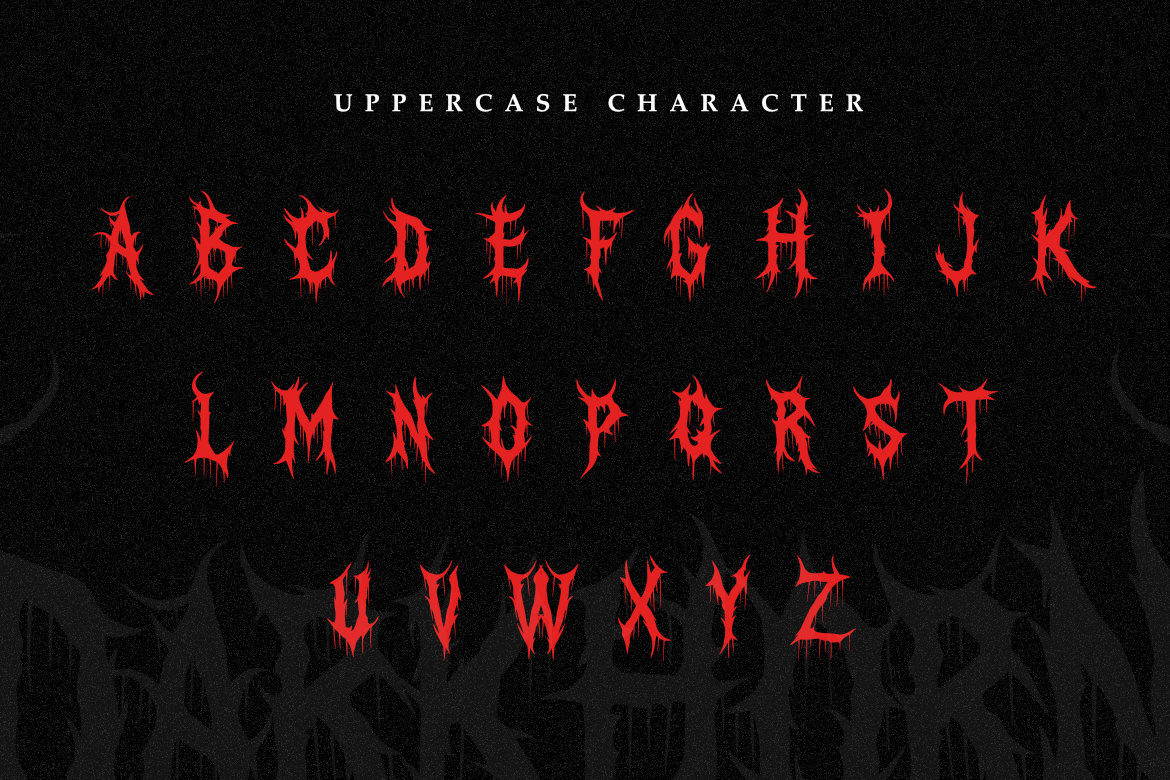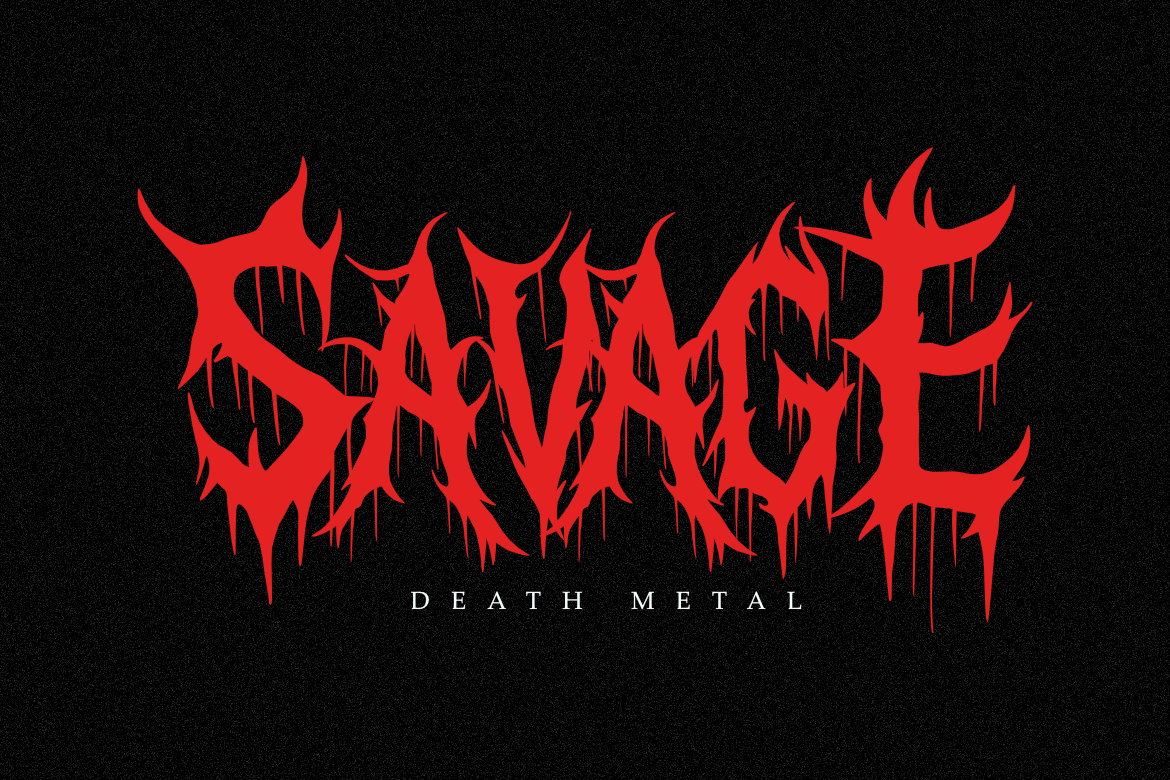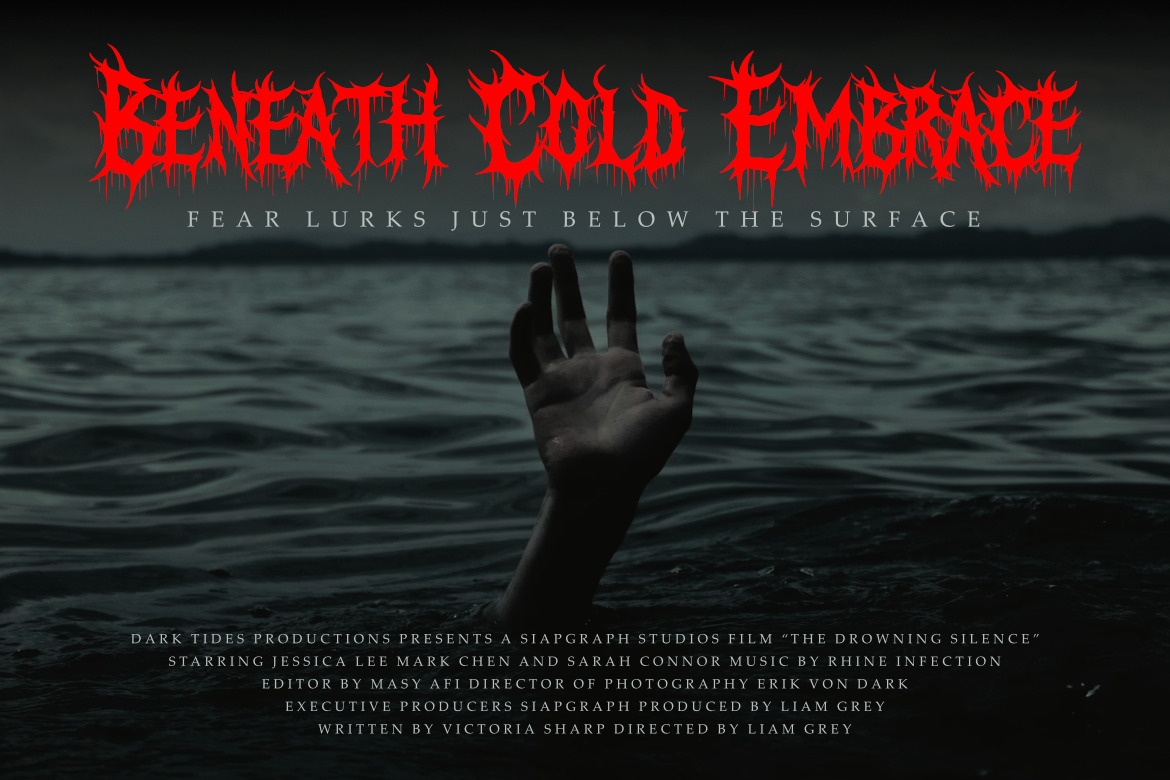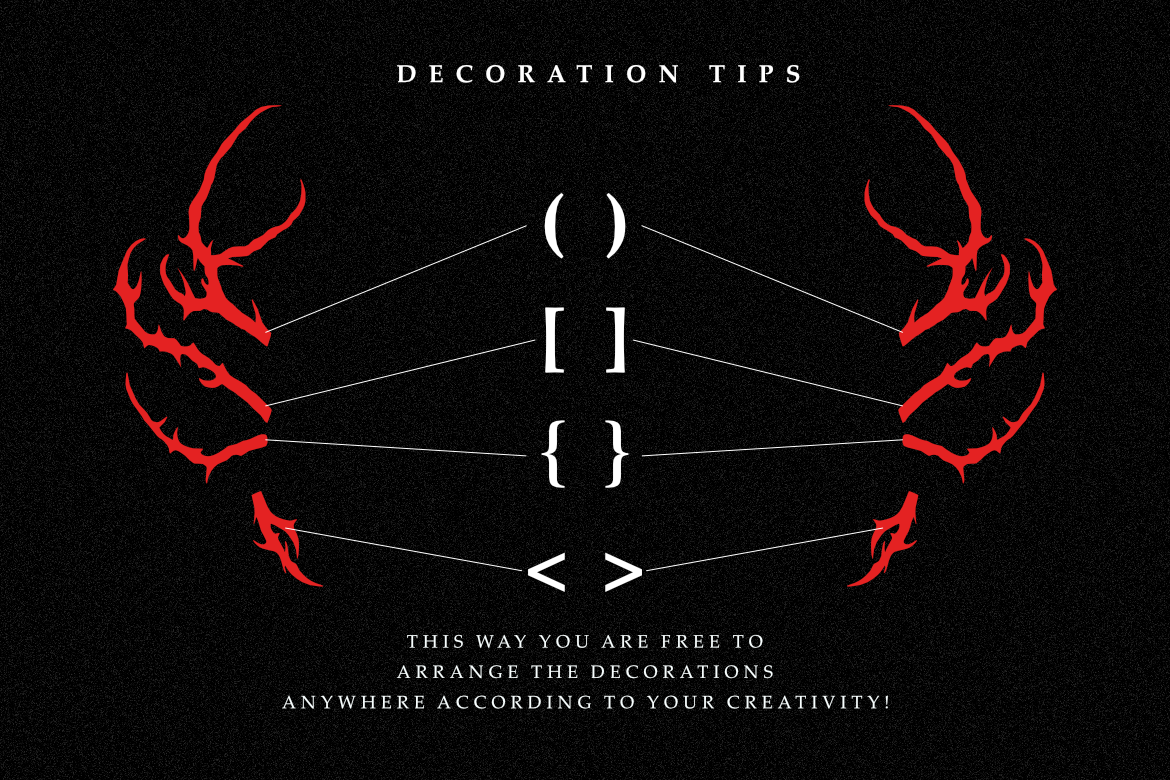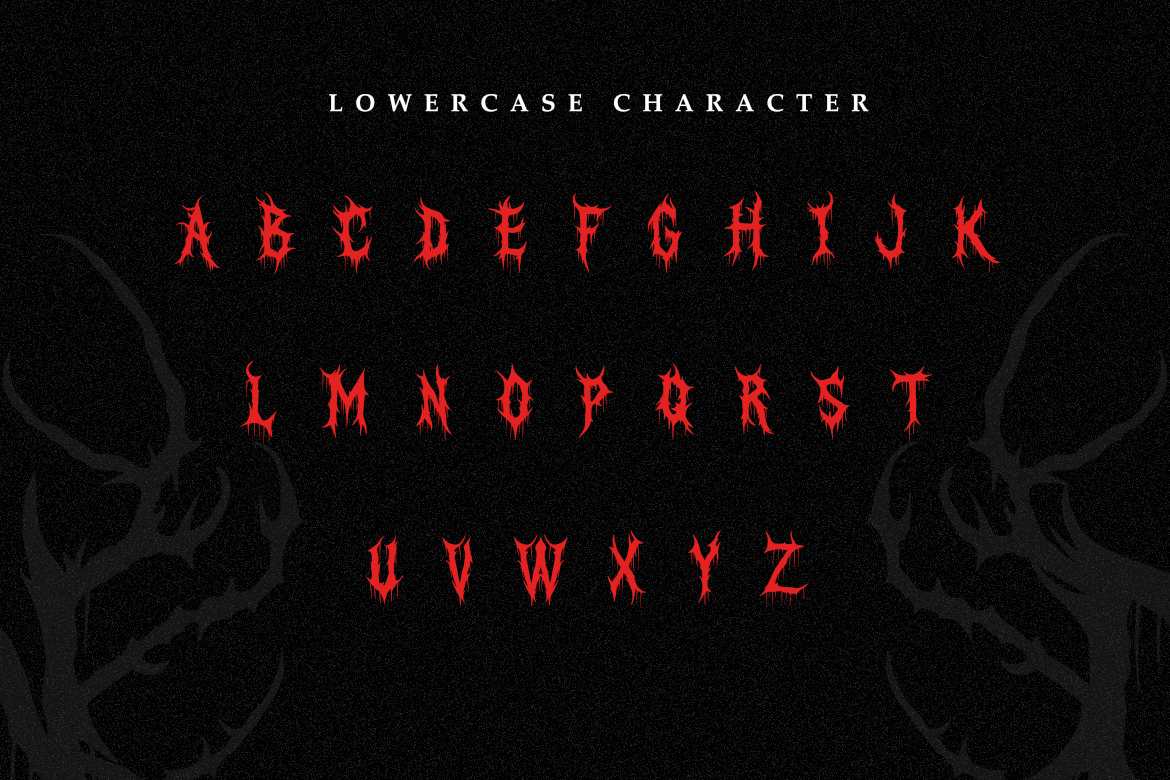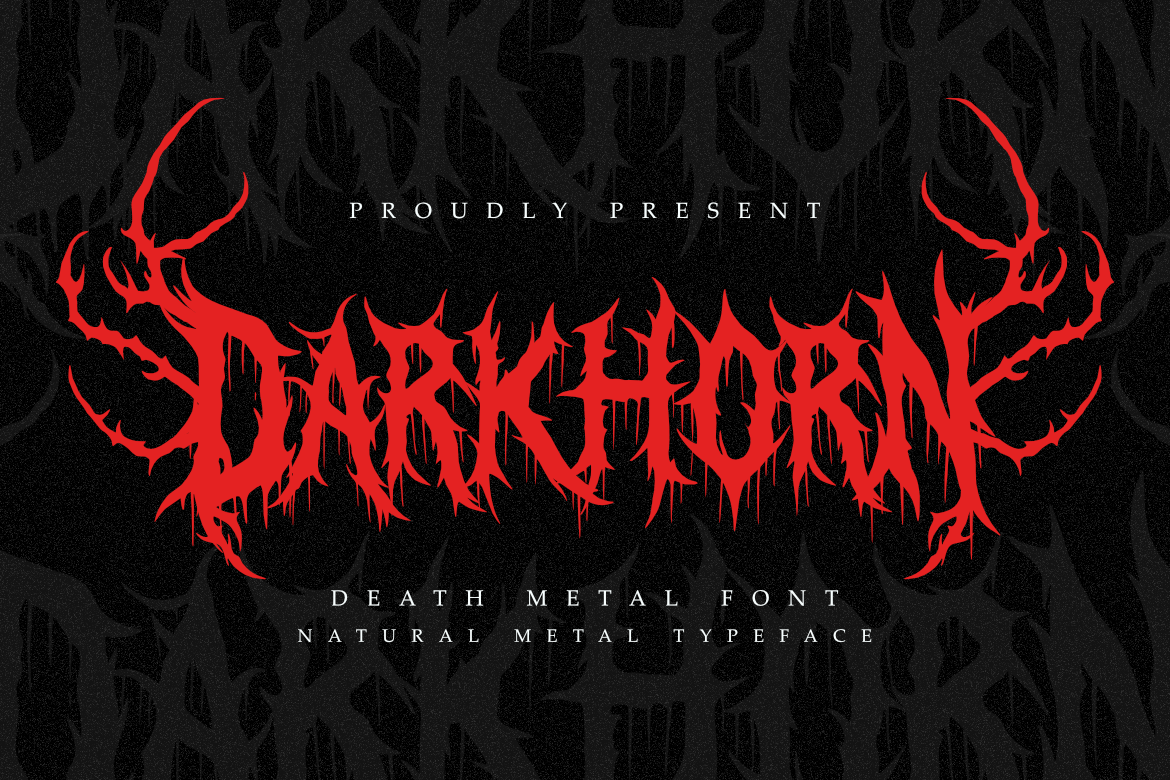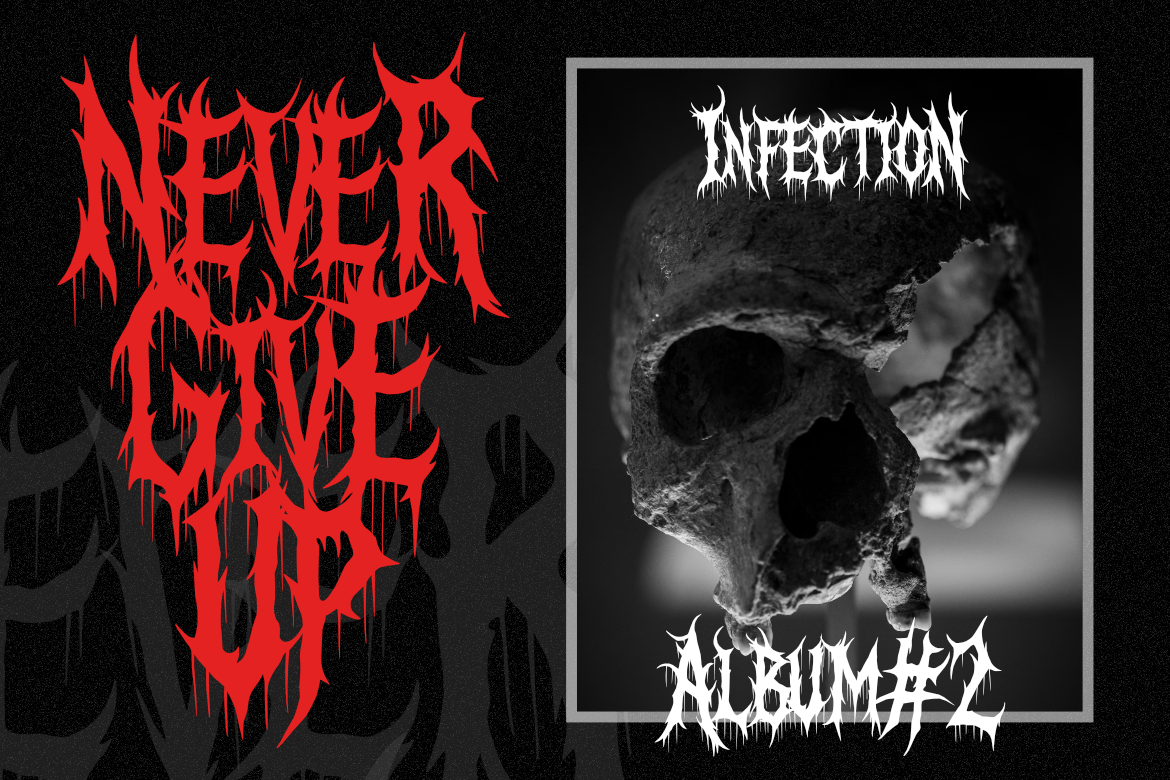
Darkhorn - Death Metal Font
Death Metal Font for Band Logos, Album Covers & Extreme Branding
Darkhorn is a brutal display font inspired by the extreme aesthetic of death metal culture and dark fantasy. Featuring sharp, horn-like extensions and raw, aggressive letterforms, this font is designed to deliver a powerful visual impact for any project needing an edgy, underground vibe.
Perfect for band logos, metal branding, extreme sports posters, horror movie titles, and merchandise design. Darkhorn brings an authentic, visceral energy to your creative work.
- Authentic death metal & aggressive aesthetic.
- Unique horn-inspired letterforms.
- Sharp and raw organic strokes.
- Ideal for logos, and headlines.